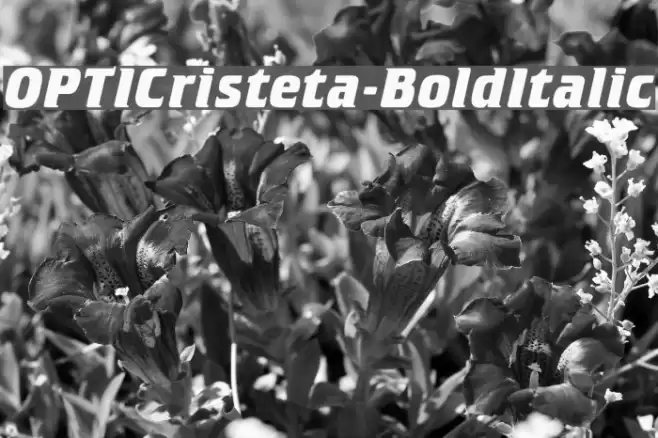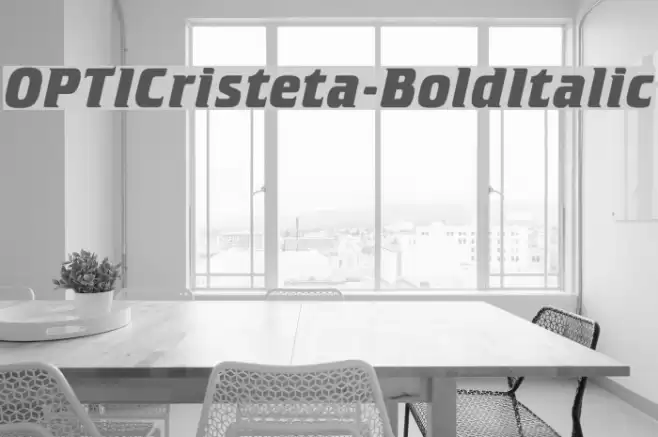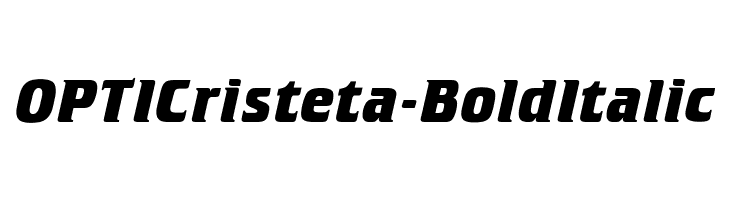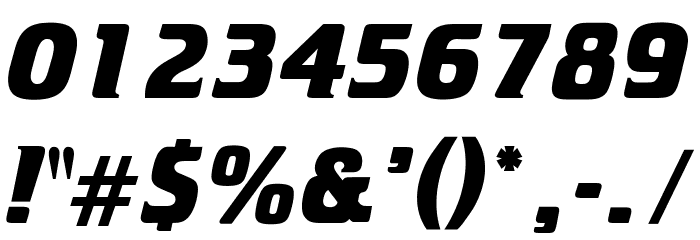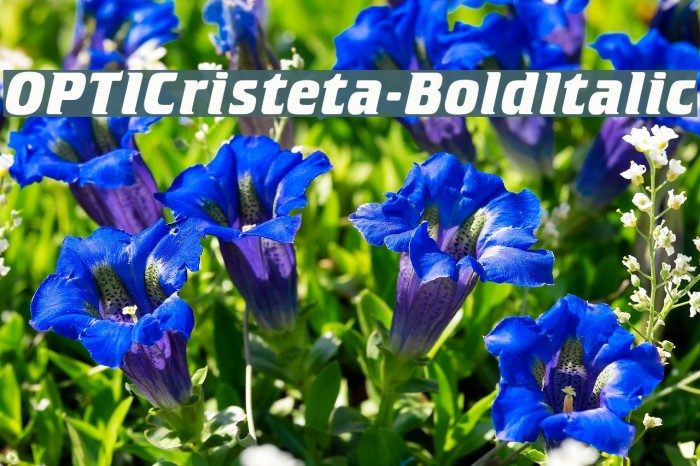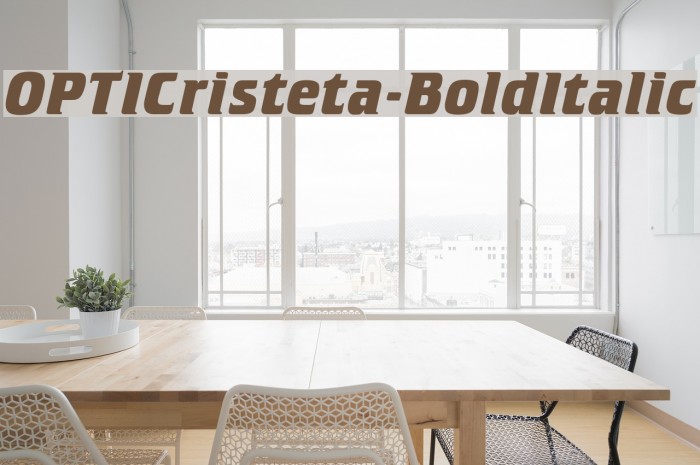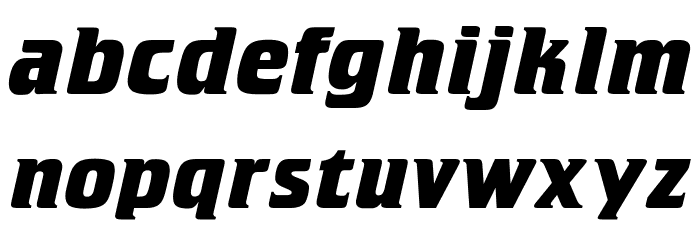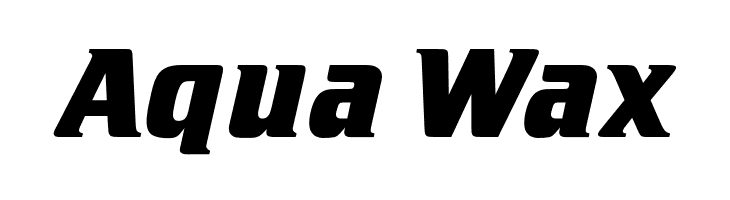
OPTICristeta-BoldItalic Font
OPTICristeta-BoldItalic Description
This font exhibits a bold and italicized style, characterized by strong, angular lines and a dynamic slant that conveys a sense of movement and urgency. The uppercase and lowercase letters maintain a consistent thickness, providing a uniform appearance across the board. The numerals are equally bold, ensuring they stand out clearly. Special characters are designed to complement the overall aesthetic, with a modern and slightly aggressive edge. The font's design is clean yet assertive, making it suitable for impactful headlines and attention-grabbing text.
A bold, italicized font with strong, angular lines and a dynamic slant from Uncategorized fonts.
- Proposed Projects: Ideal for sports branding, dynamic posters, and modern advertising campaigns.